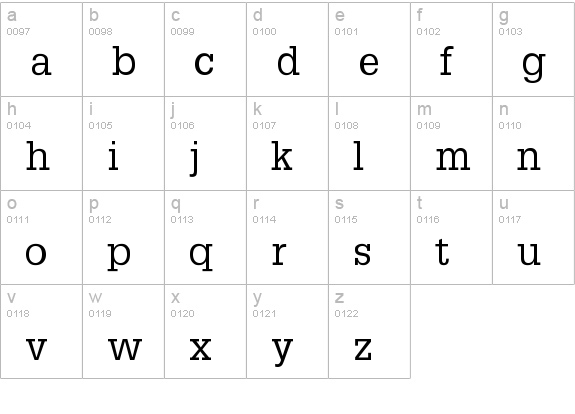
Glypha 55 Roman Font Details
Glypha 55 Roman font is a timeless and elegant typeface that exudes sophistication and class. Its clean lines and classic serifs make it perfect for a wide range of design projects, from branding to editorial layouts. The font's balanced proportions and subtle details give it a sense of refinement that is sure to elevate any design it is used in. What sets Glypha 55 Roman font apart is that it is available for free download at FontsMarket.com. This means that designers and creatives can access this exceptional font without any cost, making it a valuable addition to any font library. Whether you're working on a print project, a website design, or any other creative endeavor, Glypha 55 Roman font is sure to make a lasting impression. Download it today and add a touch of sophistication to your next project.